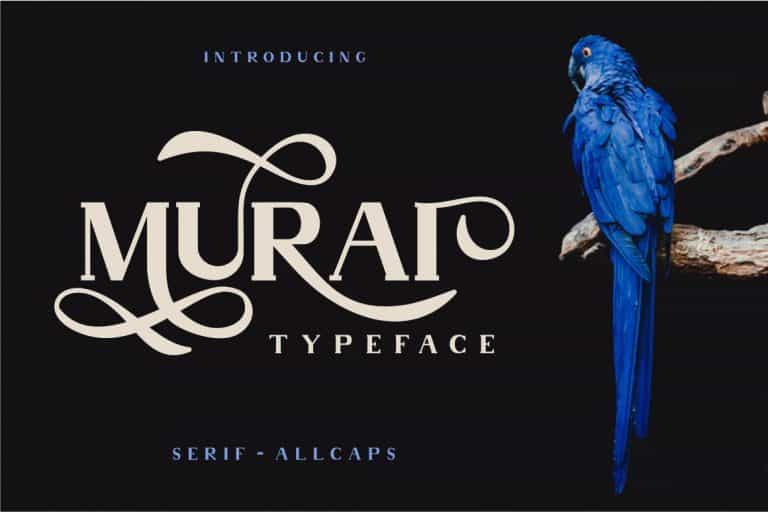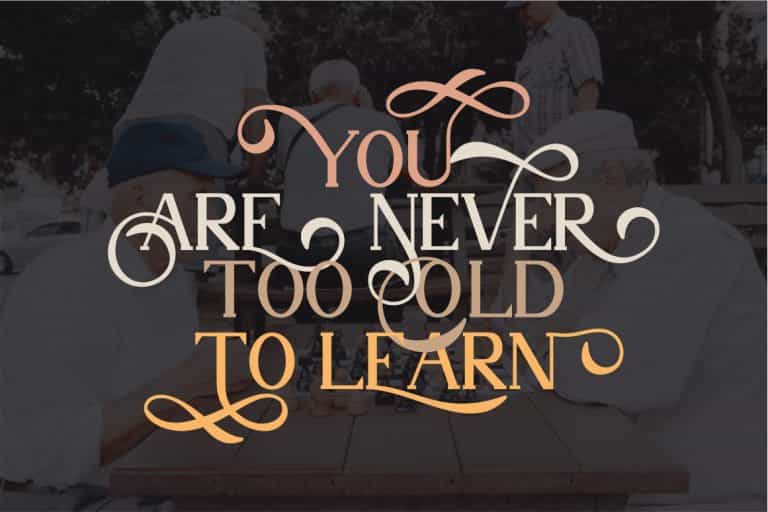
Discover Murai Typeface, part of the Serif Blackletter Display collection—a versatile and unique font perfect for adding a personal touch to your projects. Download it for free and enjoy crafting designs with style, from invitations to social media posts. This font is available exclusively for personal use, giving you the freedom to create without limits. Unlock your creativity with Murai Typeface today!
Introducing Murai Font! Murai is designed by PutraCetol Studio. Murai is a traditional and sophisticated looking display font. Alphabetical characters, with many choices, for you to mix to your creativity. Murai comes in Regular and Bold Version. Suitable for Logos, T-shirt,handwritten quotes, product packaging, Tittle Header, poster, merchandise, social media, labels, branding & greeting cards.